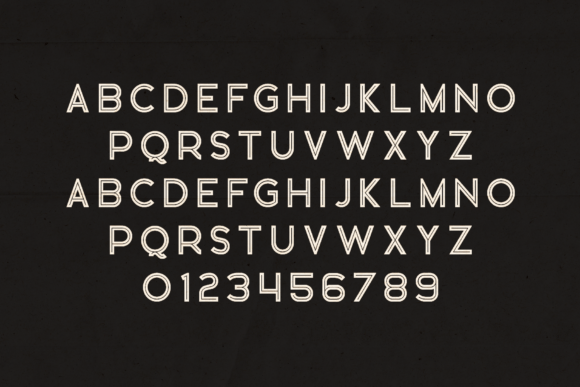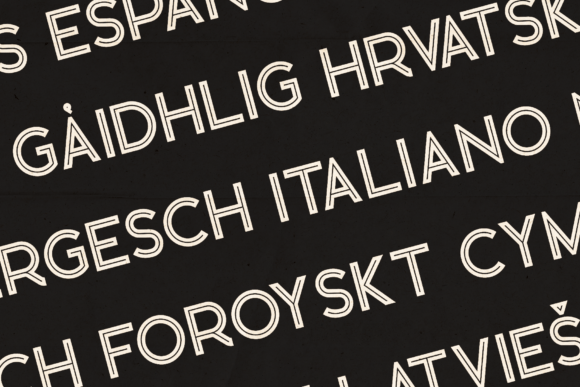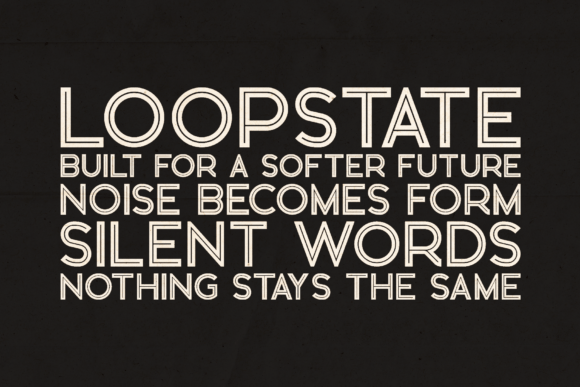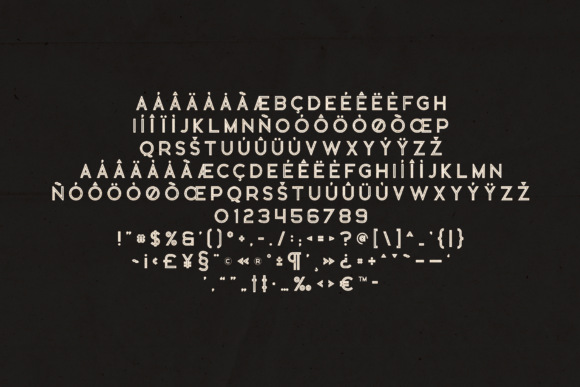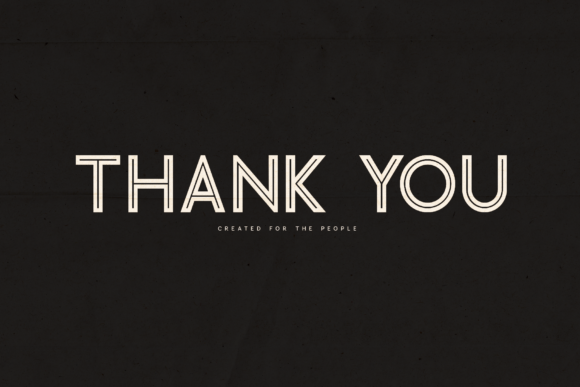
The Bronx Font: Elevating Your Designs with Timeless Sophistication
I’ll never forget the design project that led me to discover the Bronx font. I was working on a luxury branding campaign for a high-end hotel, and I needed a font that would convey elegance, sophistication, and a touch of urban flair. After hours of scouring font libraries and testing various typefaces, I stumbled upon Bronx – a geometric inline display font that instantly captured the essence of the brand. Its clean lines, precise detailing, and Art Deco inspiration made it the perfect fit. In this article, I’ll share my experience with Bronx, its features, and how to make the most of this stunning font.
Why Bronx Stands Out
Bronx is more than just a font – it’s a design statement. Here are some key features that make it stand out:
- ✨ Clean geometric construction
- ✅ Elegant inline detailing
- 🔥 Strong Art Deco influence
- 📣 Perfect headline presence